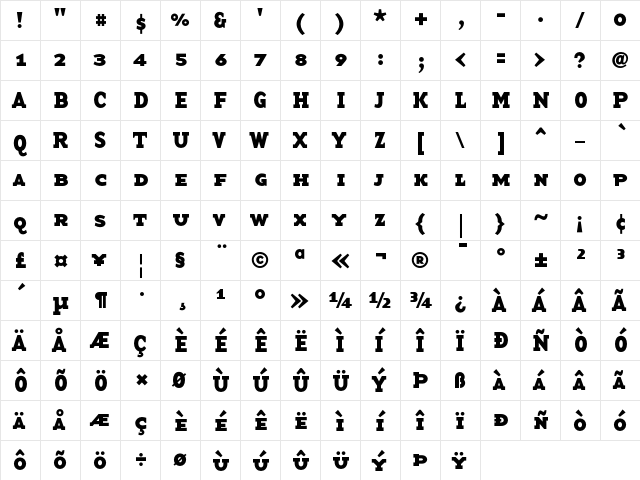
BaseTwelve SerifSCB Font Preview
BaseTwelve SerifSCB
BaseTwelve SerifSCB Font Details
| Style | SerifSCB |
Design Context for BaseTwelve Typeface
BaseTwelve carries the refined structure of traditional serif typography, with bracketed terminals and considered proportions that communicate credibility and craft.